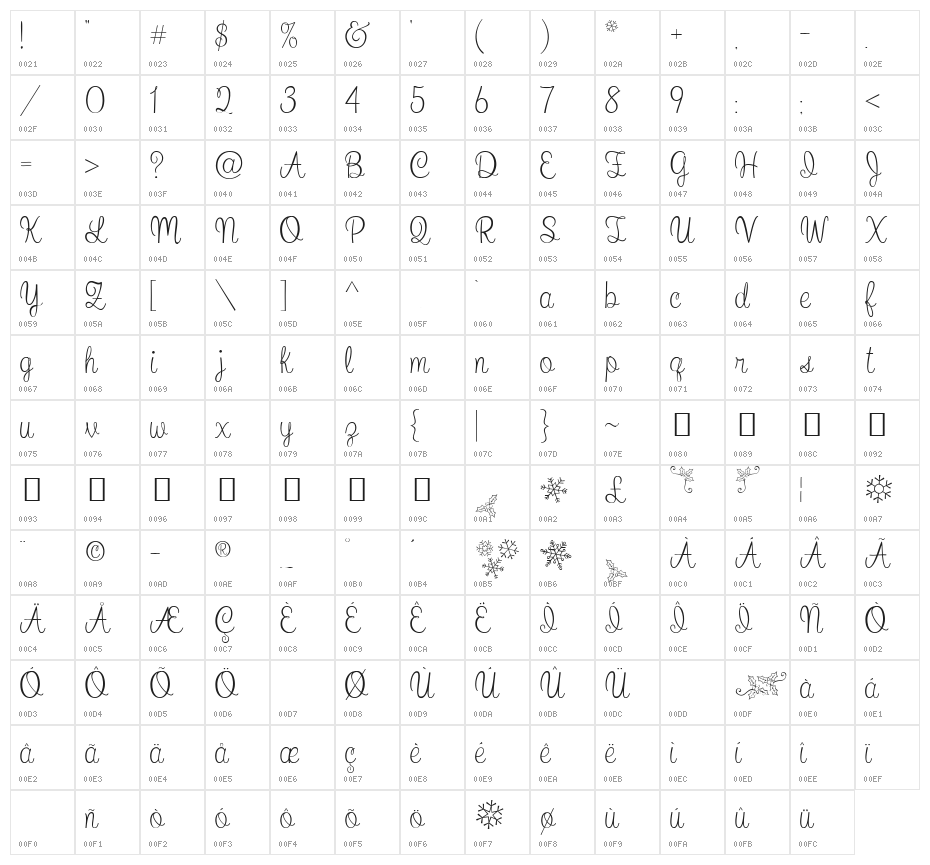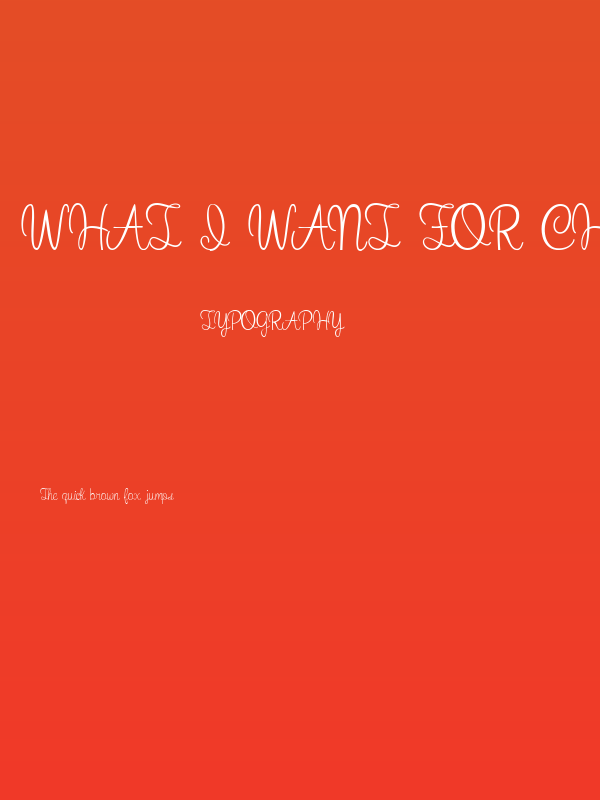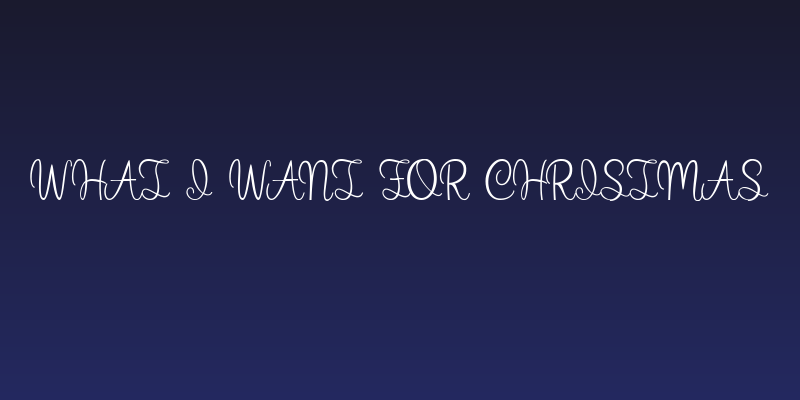
What I Want For Christmas Font
What I Want For Christmas Description
This font features a playful and whimsical script style, characterized by its flowing, interconnected letters. The uppercase letters exhibit a unique blend of elegance and casual flair, with loops and curves that add a sense of movement. The lowercase letters maintain a consistent style, with smooth transitions and a slightly more compact form. Numbers are clear and maintain the same playful aesthetic, making them easily readable. Special characters are creatively designed, incorporating the same flowing lines and curves. This font exudes a sense of joy and creativity, making it ideal for projects that require a personal touch.